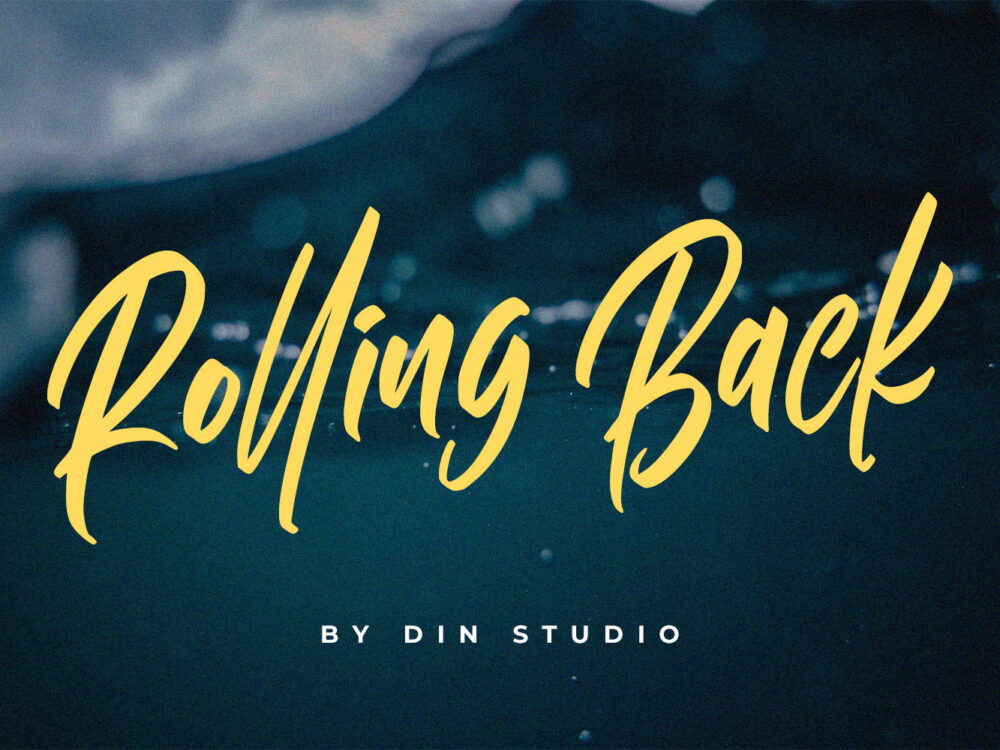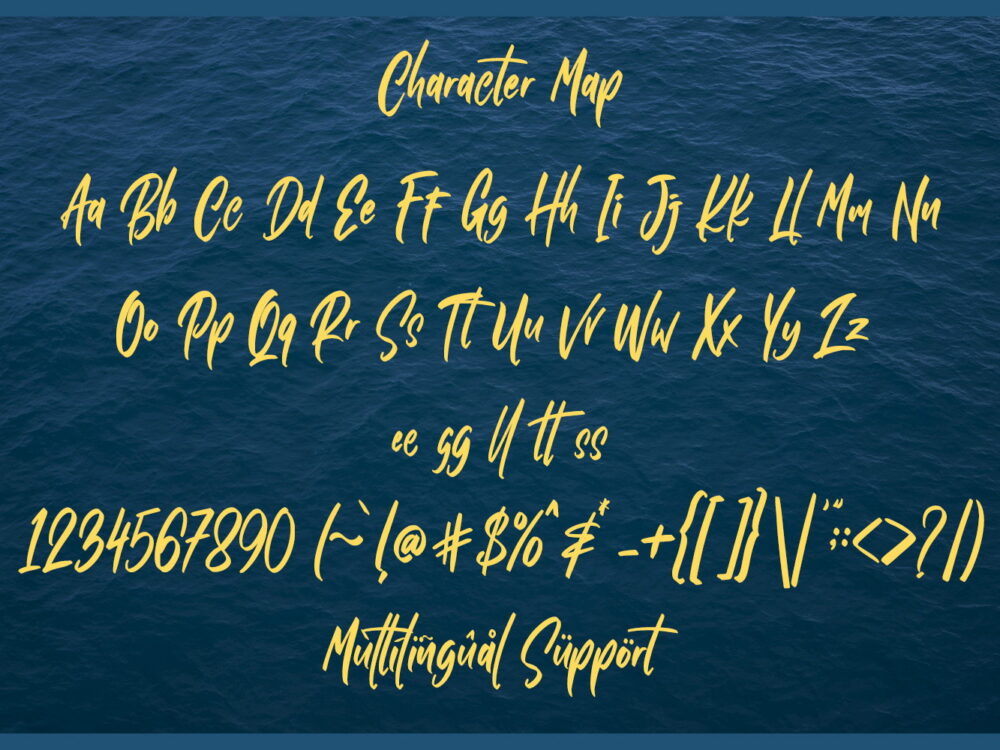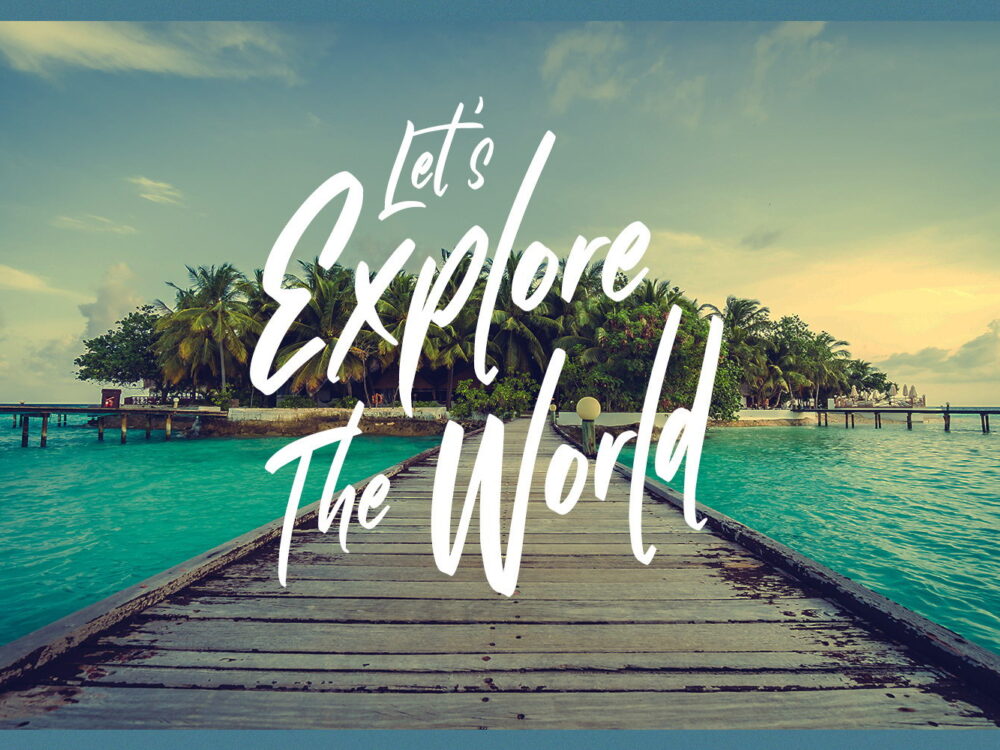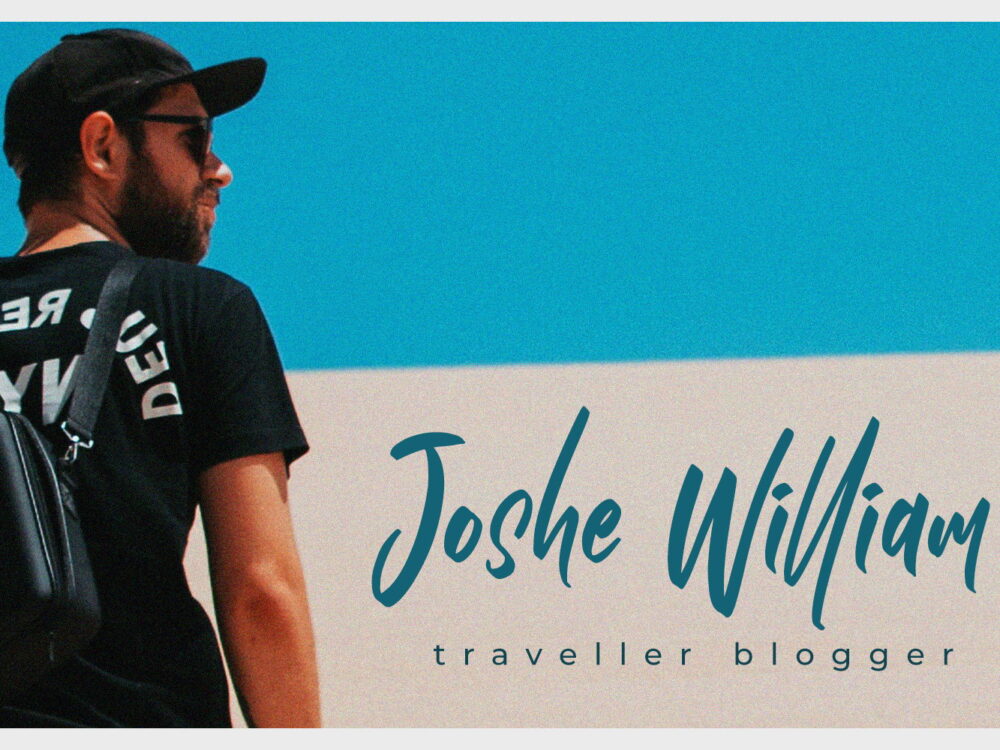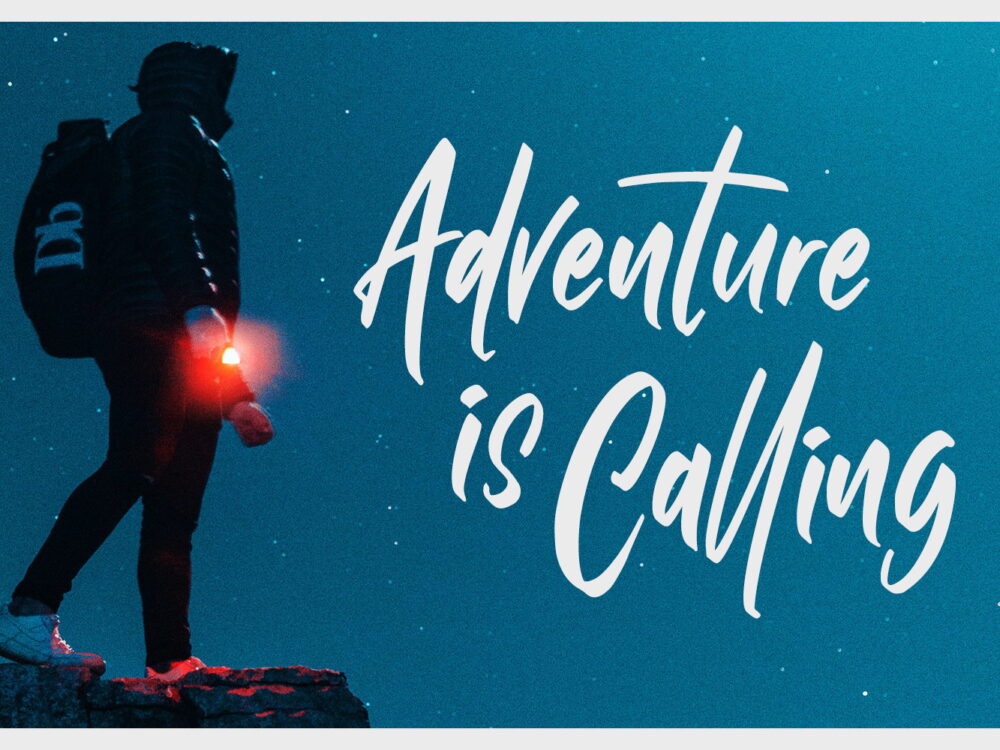
Rolling Back Font
Free Brush Font
If you are looking for a natural handwritten font then Rolling Back Font is perfect for you. It will add personality and uniqueness to any of your projects that require a handwritten font – from branding to printing on T-shirts and more. The archive includes a demo version, free for personal use only. Click here to purchase the full version of the font.